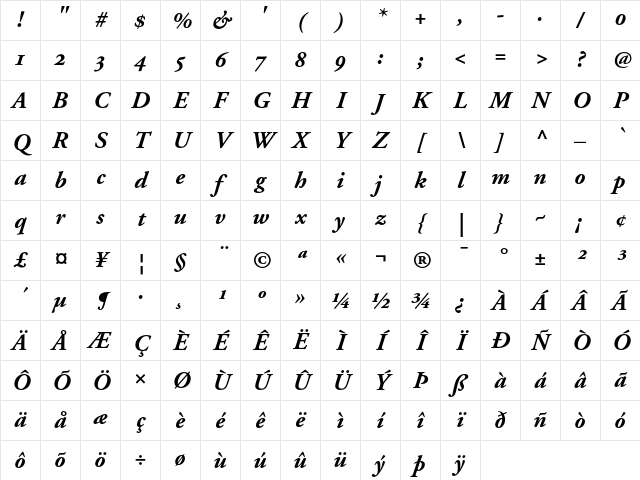
Adobe Garamond Bold Italic Oldstyle Figures
Style: Bold Italic Oldstyle Figures
Complete Adobe Garamond Bold Italic Oldstyle Figures glyph index. Displaying only characters natively supported by Adobe Garamond Bold Italic Oldstyle Figures font.
Design Context for Adobe Garamond
Adobe Garamond carries the refined structure of traditional serif typography, with bracketed terminals and considered proportions that communicate credibility and craft. The slanted form adds forward momentum and visual energy. Its bold stroke weight gives it real presence on the page.
Pro Tip: Use Adobe Garamond for editorial body copy and considered headline work. Pair with a neutral sans for UI elements or captions to create a classic hierarchy.